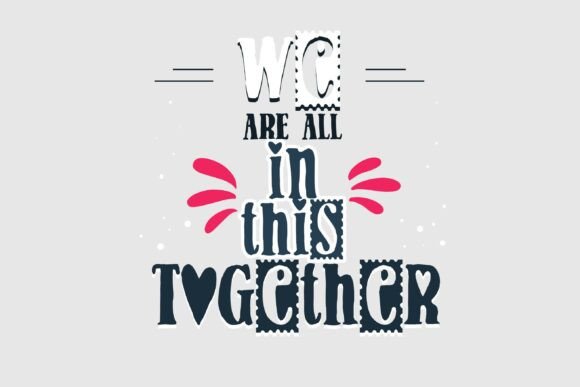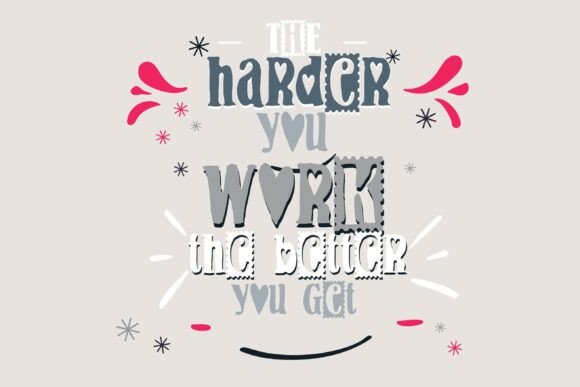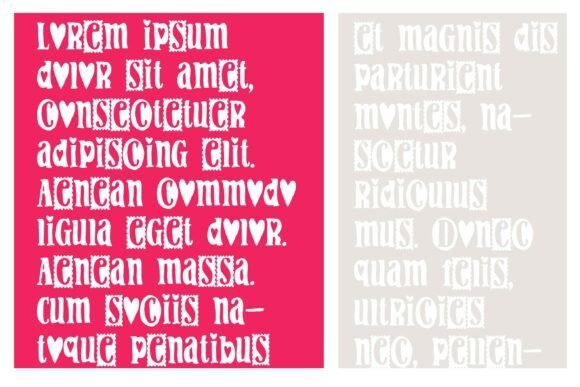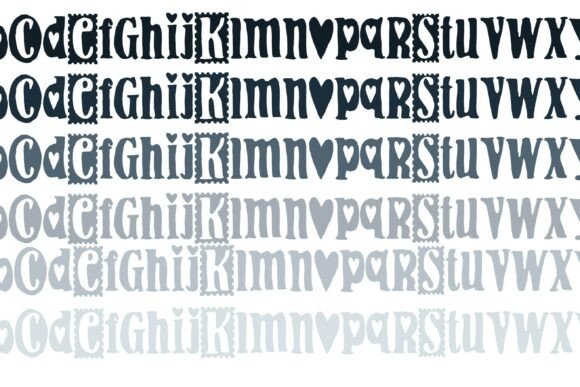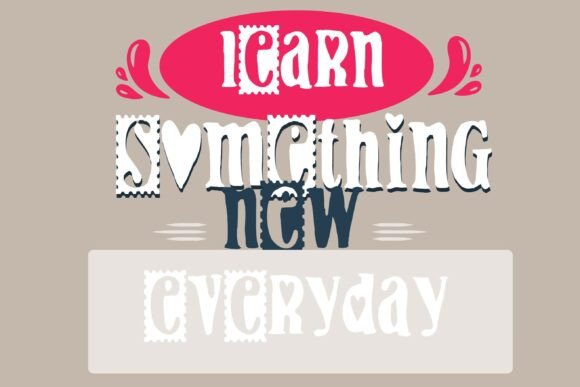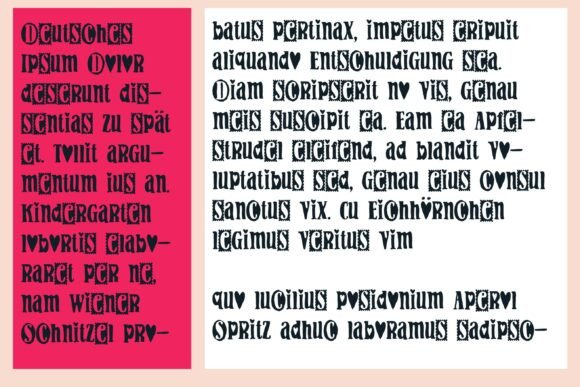
Gouda Looking Love: The Ultimate “Crafty” Cut-Out Font
I’ll never forget the design project that led me to discover the charming Gouda Looking Love font. I was working on a nursery art piece for a client’s little one, and I wanted to create a title that felt playful, yet authentic. As I scrolled through font after font, nothing seemed quite right – until I stumbled upon Gouda Looking Love. Its unique, hand-crafted aesthetic instantly captured the whimsical feel I was going for. I knew right then and there that I had found the perfect fit.
- ✅ The delightfully irregular design, complete with mismatched heights and jagged edges, gives it a refreshingly handmade feel.
- ✅ The variety of heart-shaped centers adds a sweet, playful touch that’s perfect for projects that need a bit of whimsy.
- ✅ The tactile quality of the font brings digital designs to life, making it ideal for projects that value authenticity and “perfect imperfection.”
- 🤔 Some users might find the irregularities in the font’s design a bit challenging to work with, especially if they’re used to more traditional typography.
- ⚠️ The font’s uniqueness might not make it the best fit for more formal or corporate design projects.
The Backstory Behind Gouda Looking Love
The story behind Gouda Looking Love is one of creative inspiration. The font’s designer, though not widely documented, likely drew inspiration from traditional paper cut-out art and the charming aesthetic of handmade crafts. The result is a font that feels both nostalgic and refreshingly modern.
Q: What type of projects is Gouda Looking Love best suited for?
A: Gouda Looking Love is ideal for projects that value authenticity and “perfect imperfection,” such as nursery art, children’s book titles, or quirky food packaging.
Q: Can I combine Gouda Looking Love with other fonts?
A: Absolutely! Pairing Gouda Looking Love with a simple, clean sans serif can create a beautiful contrast that makes your text stand out.